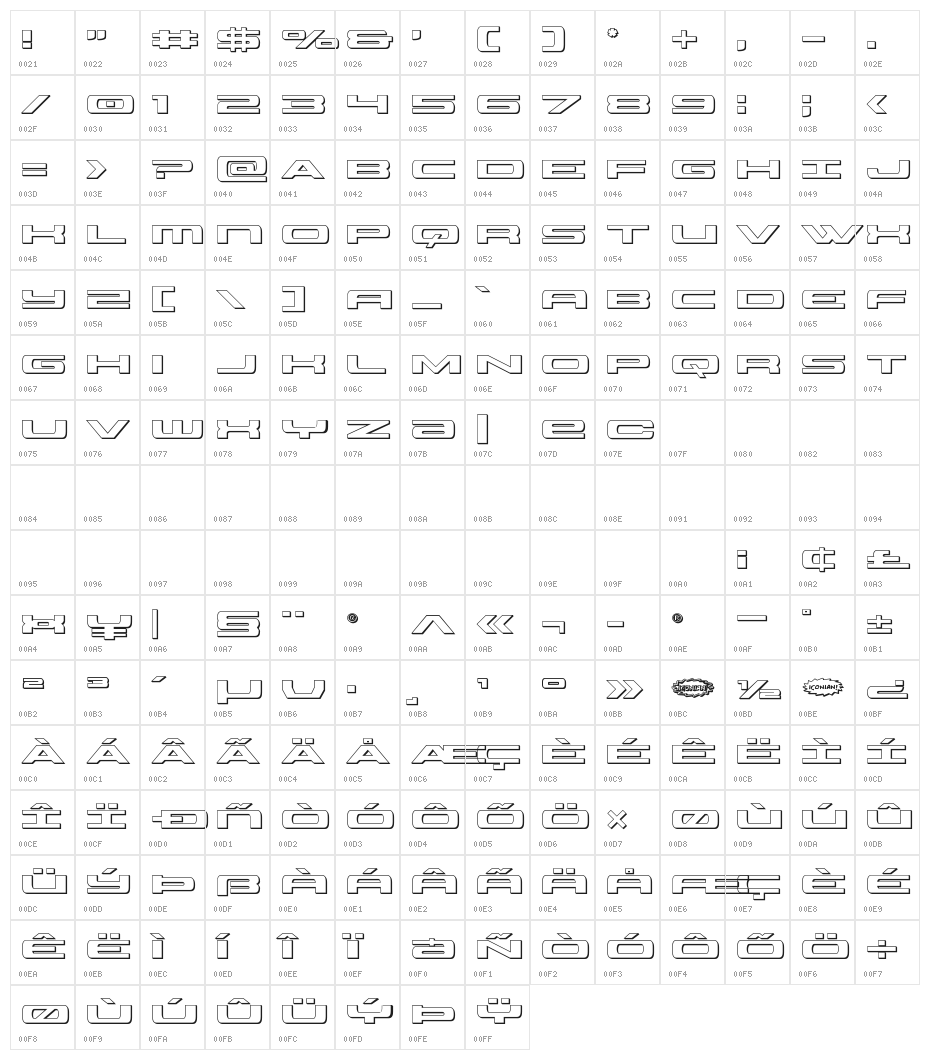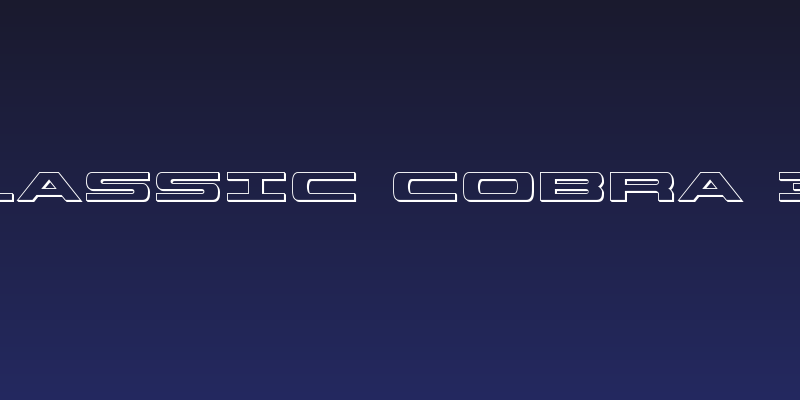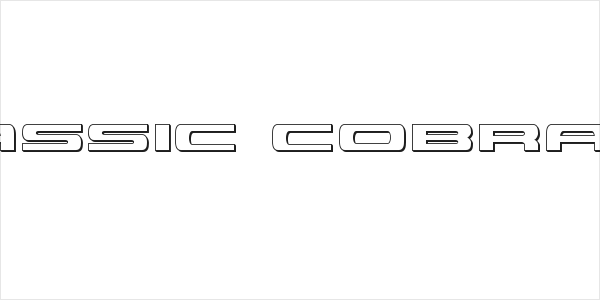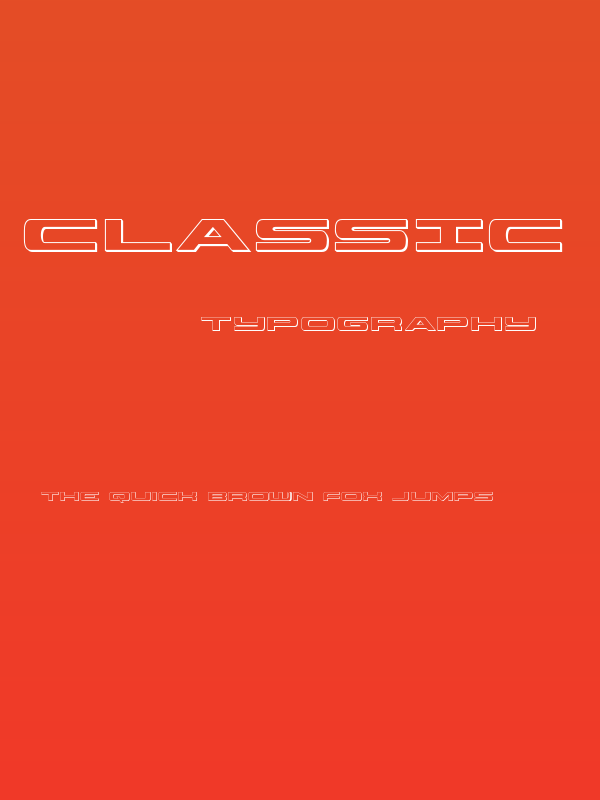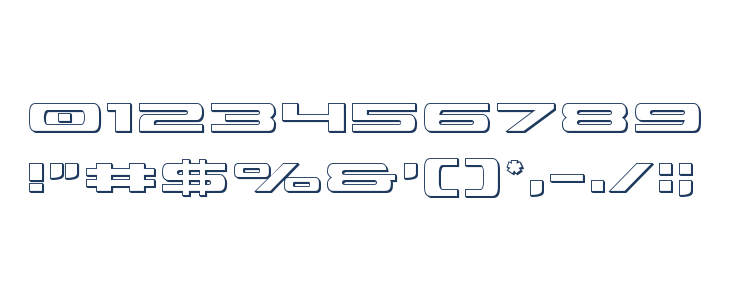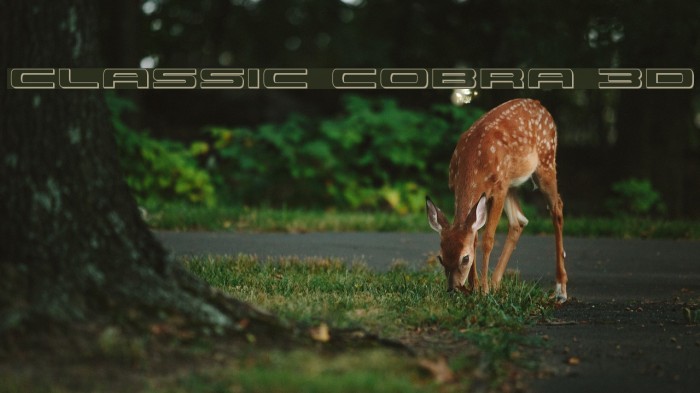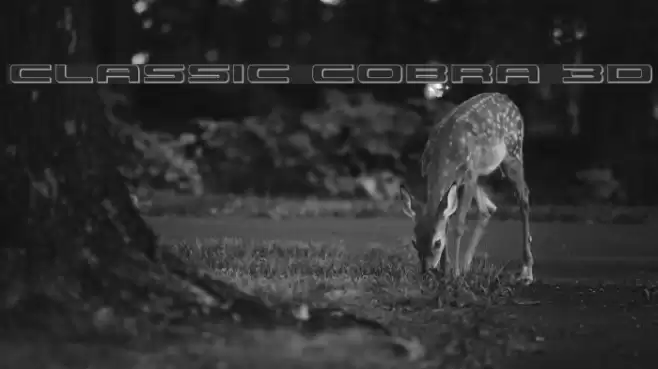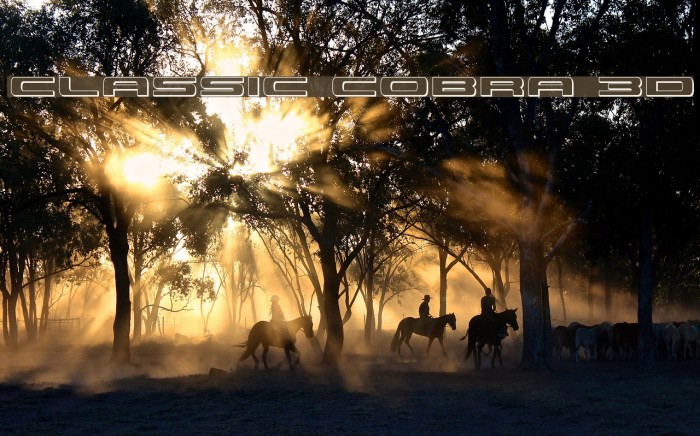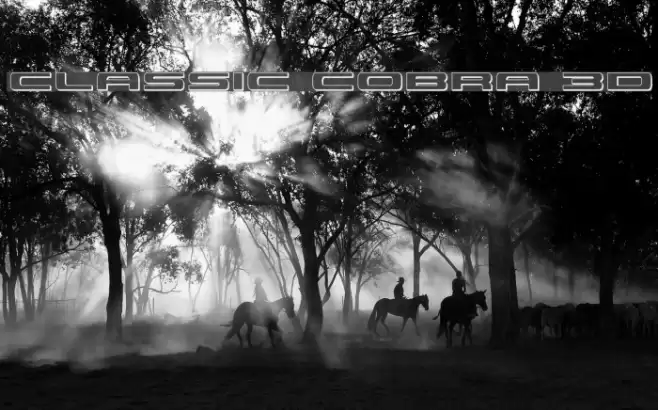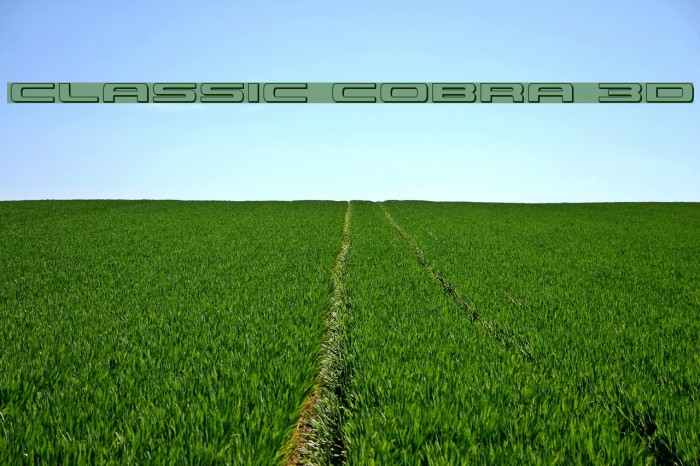
Classic Cobra 3D Font
This font features a bold, geometric design with a three-dimensional effect that gives it a striking and modern appearance. The characters are outlined with a consistent thickness, creating a sense of depth and structure. The uppercase and lowercase letters maintain a uniform style, with sharp angles and clean lines that contribute to its futuristic look. The numbers and special characters follow the same design principles, ensuring a cohesive appearance across all glyphs. This font's unique style makes it ideal for projects that require a bold and eye-catching typeface.
| Proposed Projects | Ideal for branding, posters, video game titles, and any project needing a futuristic and bold typeface. |